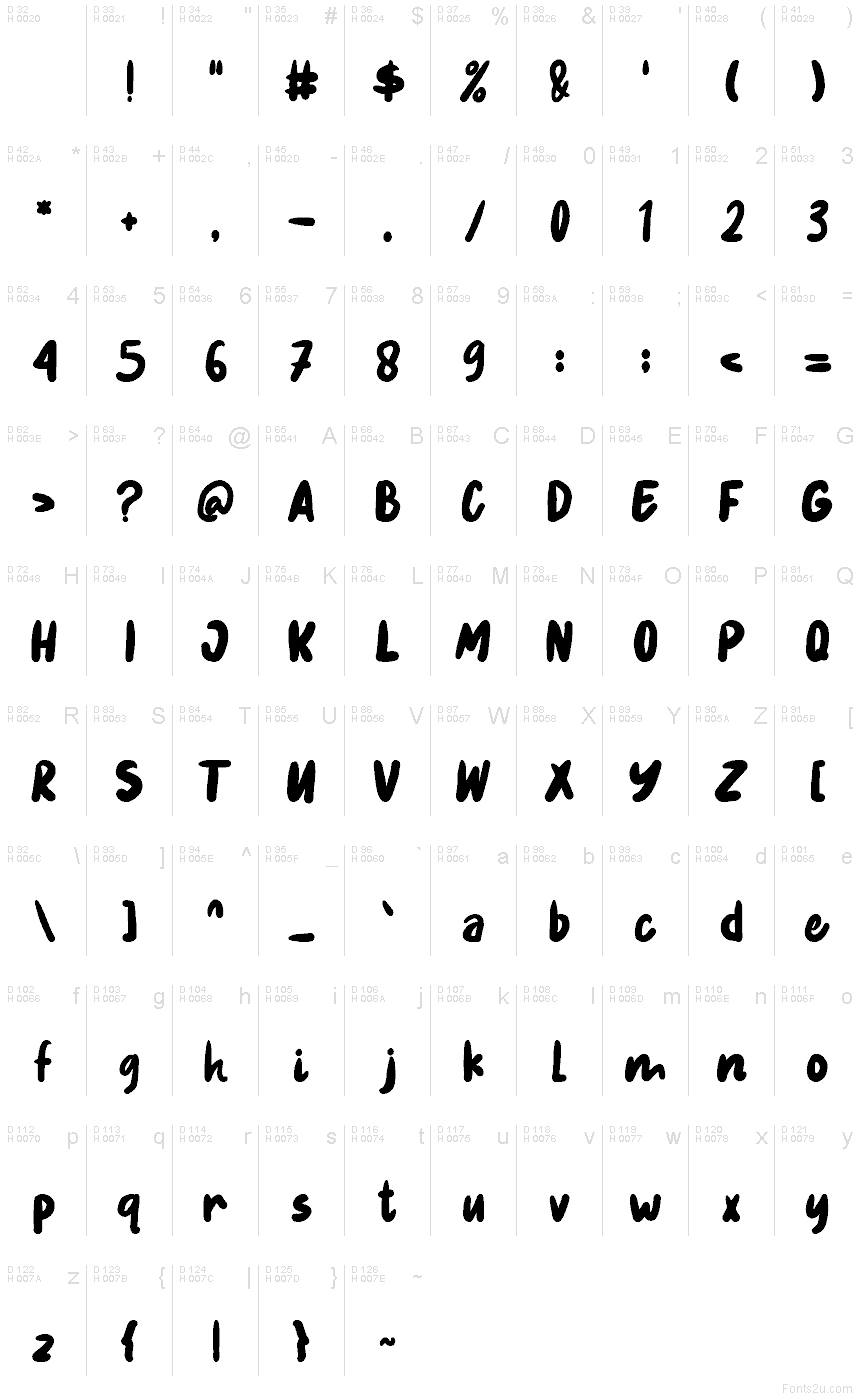
Rampung
Rampung font by Wildan Type is a bold handwritten font with an energetic and smooth personality. Its contemporary and friendly look blends casual elements with playfulness that grabs attention immediately while not being pretentious. It offers beautiful readable characters that can become a part of both small and wide body texts in various fields.
Bring this free handwritten font to your typographic posters, packaging designs, occasional invitations, photo captions, magazine covers, thumbnails for videos suitable to youths or children, signatures for blogs or vlogs related to lifestyle design of mobile apps/website interfaces.